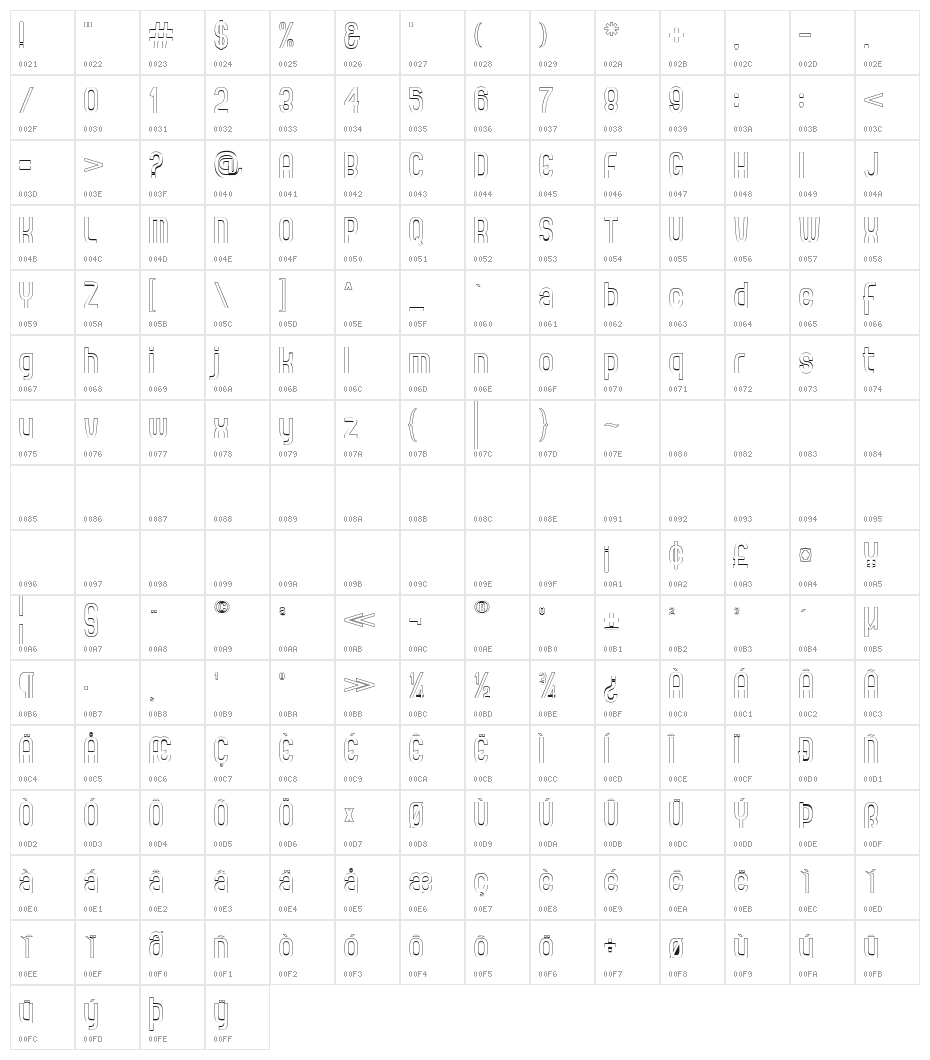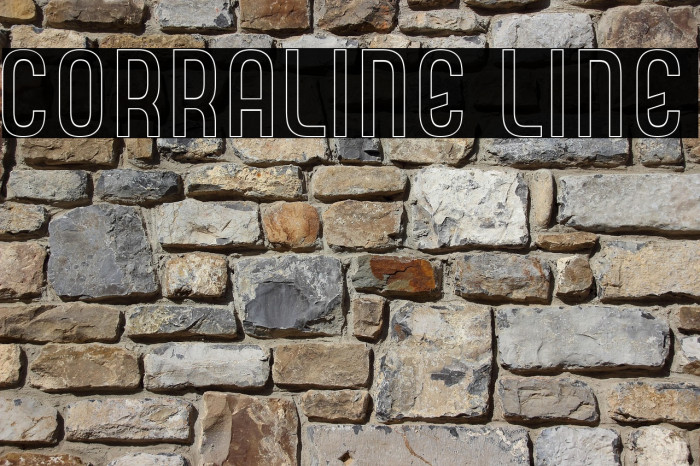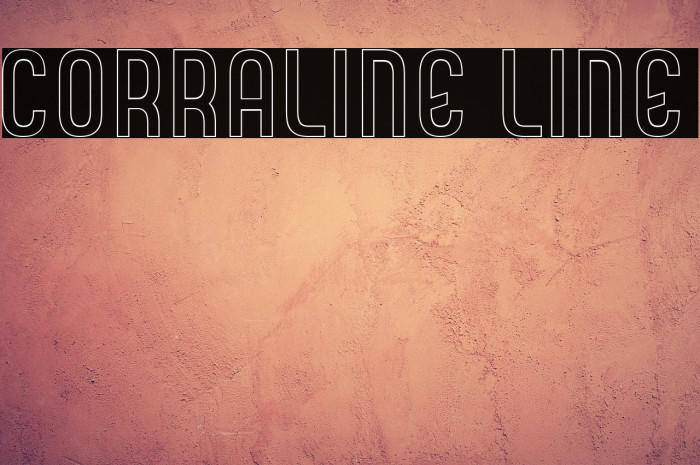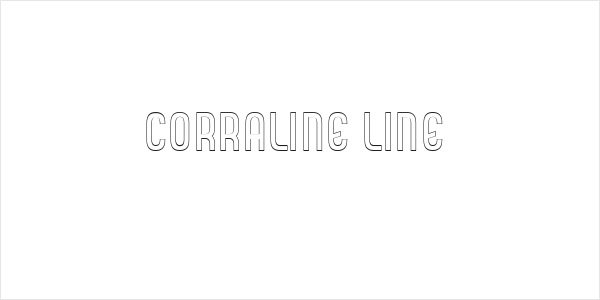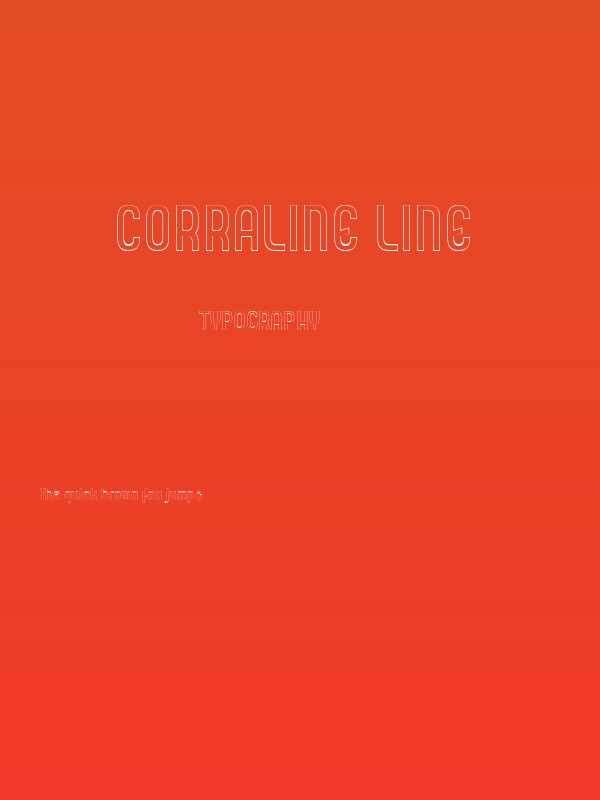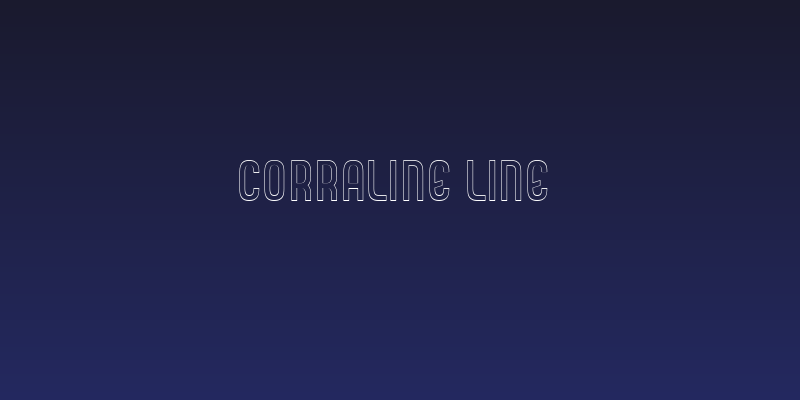
CORRALINE LINE Font
CORRALINE LINE Description
This font features a modern, geometric design with clean lines and a hollow, outlined appearance. Each character is constructed with uniform line thickness, creating a cohesive and structured look. The uppercase and lowercase letters maintain a consistent style, with rounded edges and a slightly condensed form. The numerals and special characters follow the same design principles, ensuring a harmonious overall appearance. This font's unique outline style makes it stand out, offering a contemporary and stylish aesthetic suitable for various design applications.